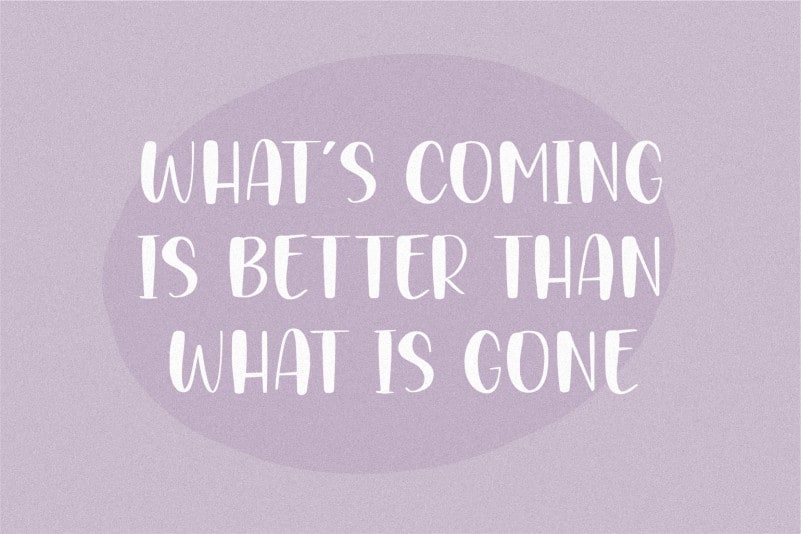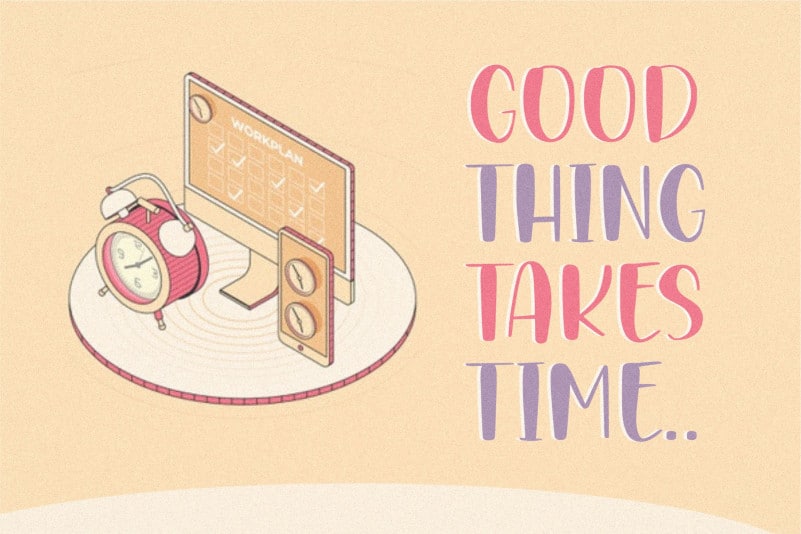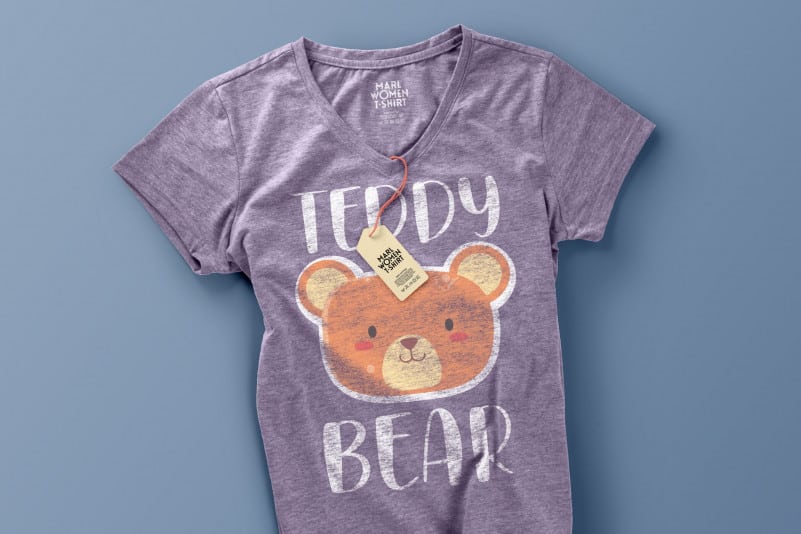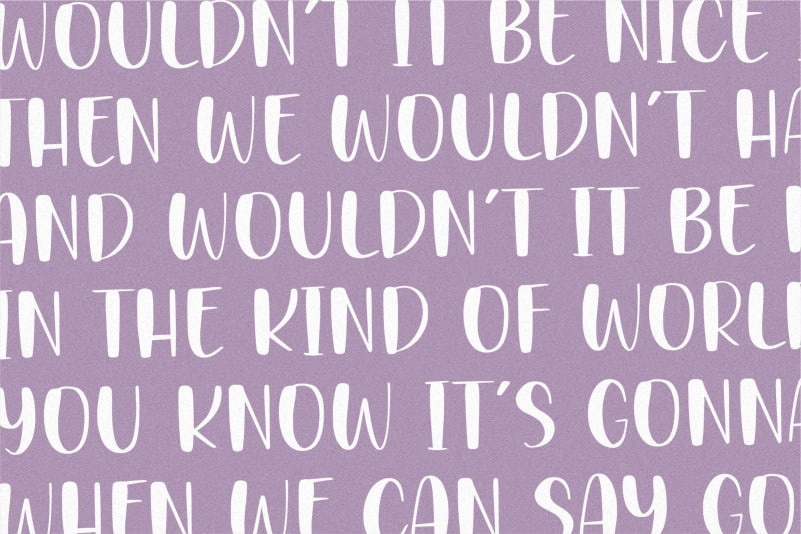
BABYCAKES Handbrushed Font
Proudly Present, BABYCAKES Handbrushed Font.
BABYCAKES is a Fun Handbrushed Font.
BABYCAKES Fun Handbrushed Font is perfect for product packaging, branding project, megazine, social media, wedding, or just used to express words above the background.